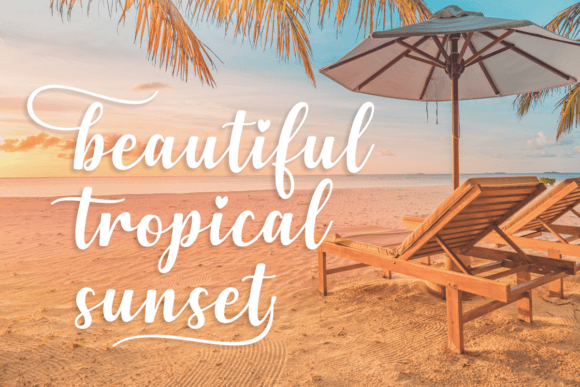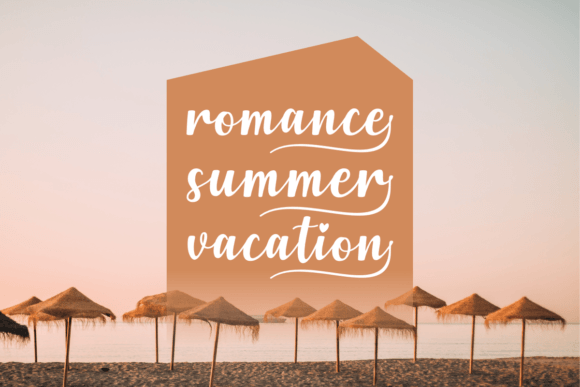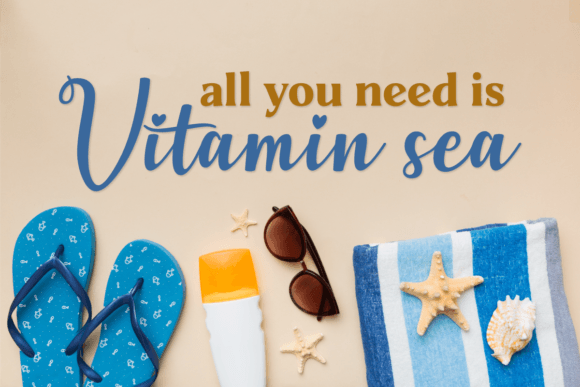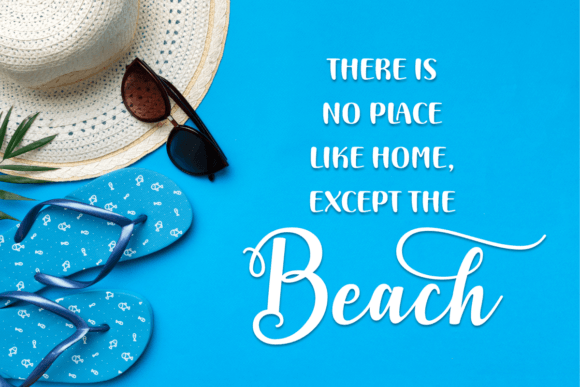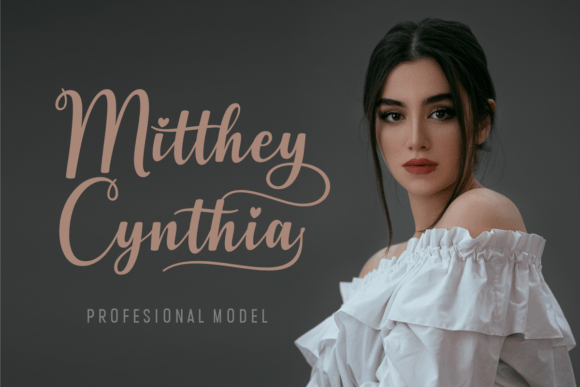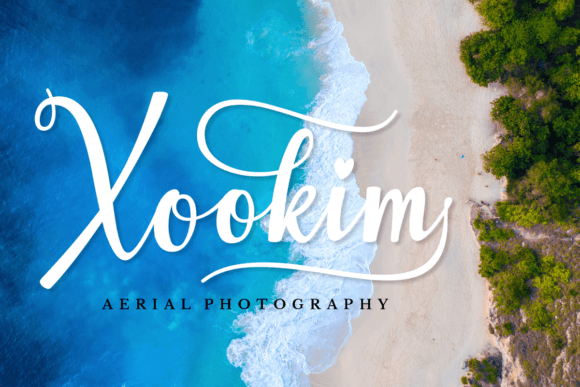
Saturday at Beach Font
About Saturday at Beach Font
Saturday at Beach emerges as an exceptional script font, adorned with elegant and dreamy swashes that add a touch of sophistication to your designs. With its gorgeous and graceful aesthetic, this typeface has the power to elevate any design composition, turning your creative ideas into captivating visual experiences. Make Saturday at Beach a valuable addition to your fonts library and witness the magic it brings to your projects!
The elegance of Saturday at Beach is evident in its gracefully crafted swashes, which contribute to a dreamy and refined appearance. Whether you’re working on invitations, branding, posters, or any design project that demands a touch of sophistication, this font stands ready to enhance your creative vision.
Imagine Saturday at Beach adorning wedding invitations, where its elegant swashes create an atmosphere of romance and charm. In branding, this font becomes a distinctive element, adding a sense of grace and uniqueness to your visual identity. Posters and other design compositions benefit from the font’s gorgeous and graceful features, turning them into visually striking pieces.
In conclusion, Saturday at Beach is more than just a font; it’s a design asset that brings elegance and charm to your creative endeavors. Whether you’re crafting invitations, branding materials, or other design compositions, let Saturday at Beach be the script font that transforms your ideas into visually enchanting realities.